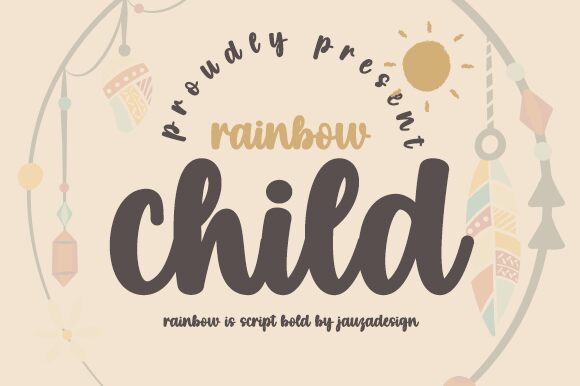
Rainbow Child
Rainbow Child font is a brush bold style font designed by Danar Nugroho. This modern script typeface has a smooth flow with cursive nature and a touch of casual elegance. Its letters have natural curves and strokes for an overall eye-pleasing appearance that charms every viewer/user.
Rainbow Child is perfect for typography projects, quotes, business cards, wedding invitations, branding designs, headlines or subheadings in brochures/billboards or blogs/website design. Suitable applications also include stationery design like notebooks and planners as well as on product packaging among others. Rainbow child is free to download so make the most out of it!